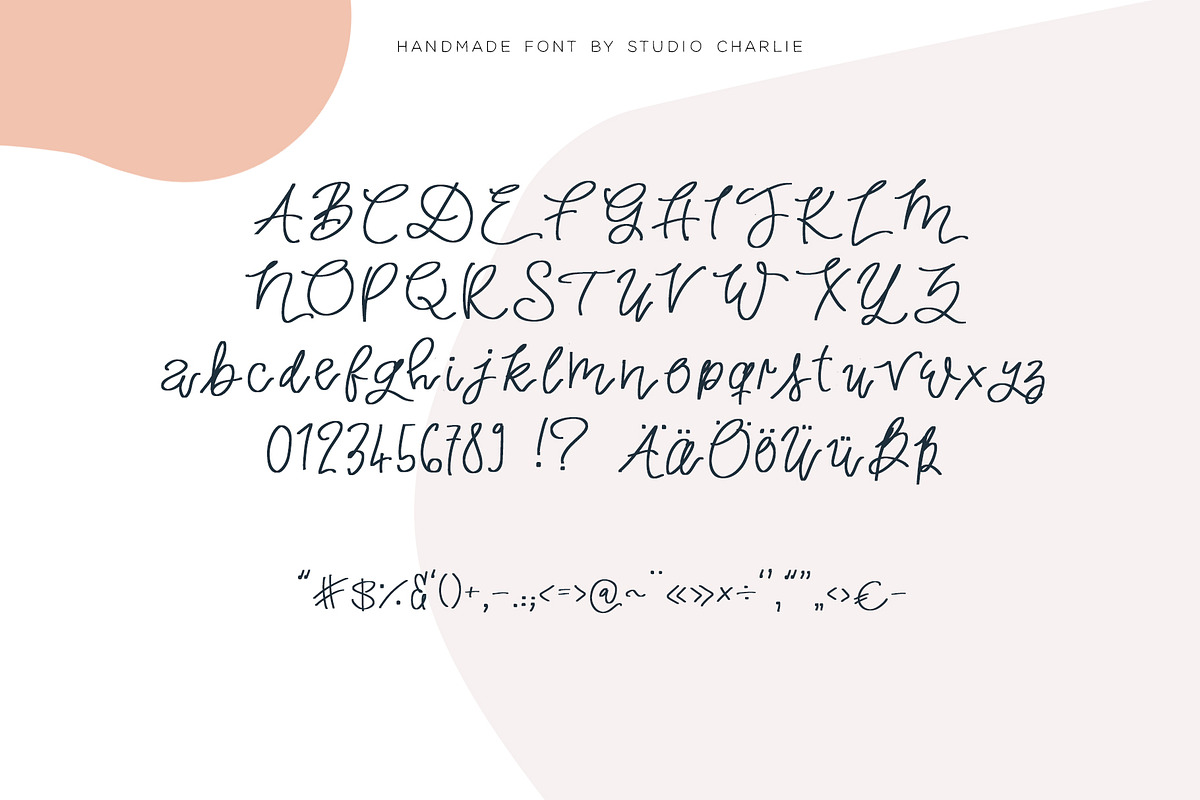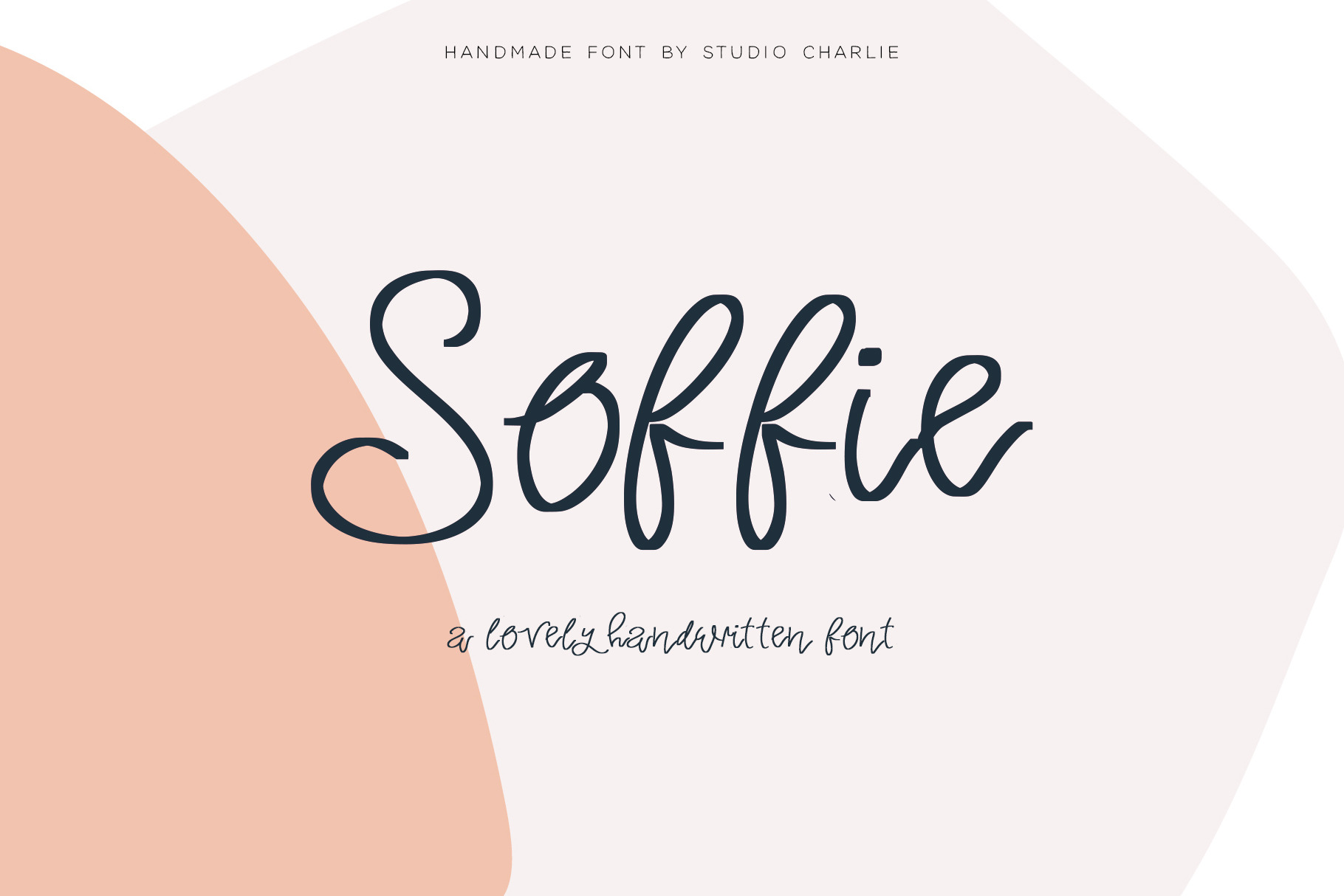
Soffie - A Lovely Script Font
Soffie is a lovely and elegant script font that supports English and German characters. The OTF font file comes with a full alphabet of both lower- and uppcase letters as well as numbers and punctuation. Some extra glyphs have been added for fun writing.
This font reminds us of all the wedding invitations and hello new baby cards we would do if we had the chance to.